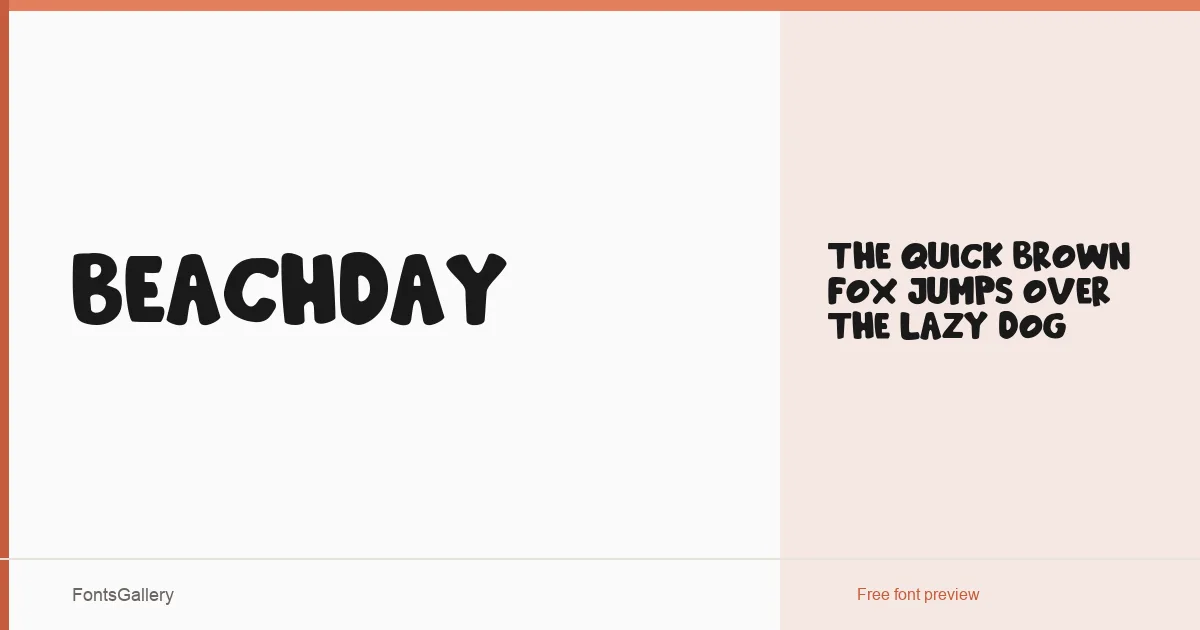
About Beachday Font
Beachday is a display typeface from Rahagita Studio that brings a playful, bold, and whimsical energy to any creative project. Its expressive character makes it an eye-catching choice for designs that need personality and visual impact. Whether you're working on print or digital media, Beachday delivers a lively, fun-filled aesthetic that stands out from the crowd.
As a display font rooted in playful and whimsical sensibilities, Beachday features bold, characterful letterforms designed to command attention. Its exuberant style lends a sense of lighthearted energy, making each letter feel expressive and full of life. The typeface strikes a balance between boldness and charm, giving it a versatile appeal across a wide range of fun, vibrant design contexts.
Beachday is ideally suited for posters, branding, social media graphics, t-shirt designs, and children's books, where its bold and playful nature can truly shine. It works best in headline and display-size applications where its whimsical character has room to make an impression. For a well-balanced layout, consider pairing Beachday with the clean neutrality of Helvetica or the complementary style of Aresink.